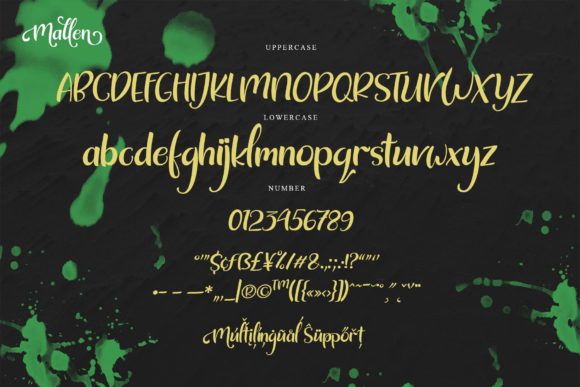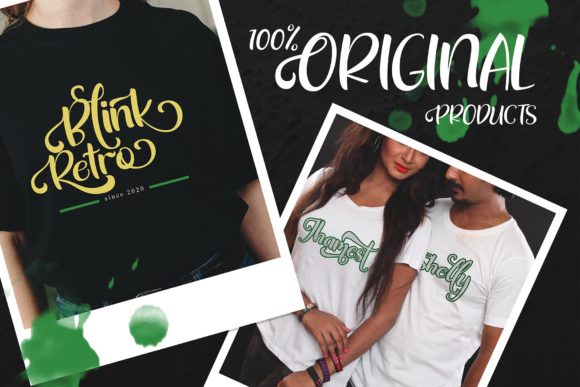
Mallen Font
db-ku.com - Script & Handwritten -- Mallen is a beautiful handwritten font. It has a flowing style that will cheer up your crafting projects. It is ideal for printed quotes, wedding invitations, social media posts, product packaging, and more!